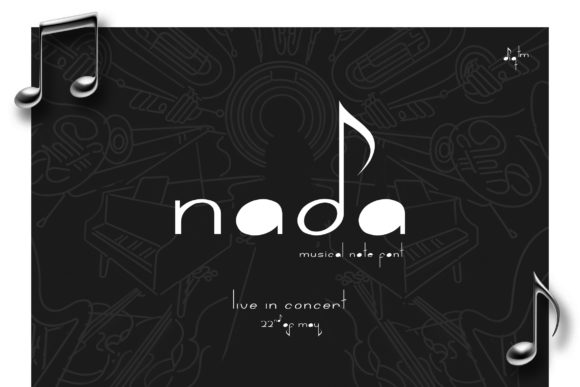
Introducing Nada Font: A Symphony of Elegance for Your Creative Compositions
In the realm of digital artistry, fonts hold the power to transform words into visual masterpieces. They possess the ability to evoke emotions, set the tone, and captivate audiences. Among this symphony of typographic wonders, Nada Font emerges as a true virtuoso, ready to orchestrate an elegant dance of characters across your creative canvas.
Inspired by the ethereal melodies of music notes, Nada Font is a decorative font that resonates with a unique charm and sophistication. Its meticulously crafted glyphs, reminiscent of graceful musical symbols, will add an air of refinement and artistry to any project you undertake.
With Nada Font at your fingertips, you can effortlessly infuse your designs with a touch of musical flair. Be it a music poster, album cover, or social media graphic, Nada Font will seamlessly blend with your creative vision, captivating your audience with its aesthetic allure.
Unleash the Creative Potential Within
Nada Font is not merely a tool; it's an invitation to unleash your creative potential and embark on a journey of artistic exploration. Whether you're a seasoned designer or just starting, Nada Font empowers you to express yourself with newfound confidence and creativity.
Imagine the possibilities:
- Craft stunning logos that resonate with your brand's musical essence.
- Design flyers and posters that exude an aura of musical enchantment.
- Create eye-catching social media posts that harmonize with your musical content.
- Elevate your website design with a touch of musical elegance.
The versatility of Nada Font extends beyond the realm of music-themed projects. Its captivating aesthetics lend themselves beautifully to a wide range of creative endeavors, including:
- Wedding invitations that radiate sophistication and romance.
- Birthday cards that emanate warmth and joy.
- Greeting cards that convey heartfelt messages with a touch of artistic flair.
- Fashion designs that exude a sense of timeless elegance.
With Nada Font as your creative companion, the possibilities are limitless. Let your imagination soar and witness the transformative power of this remarkable font.